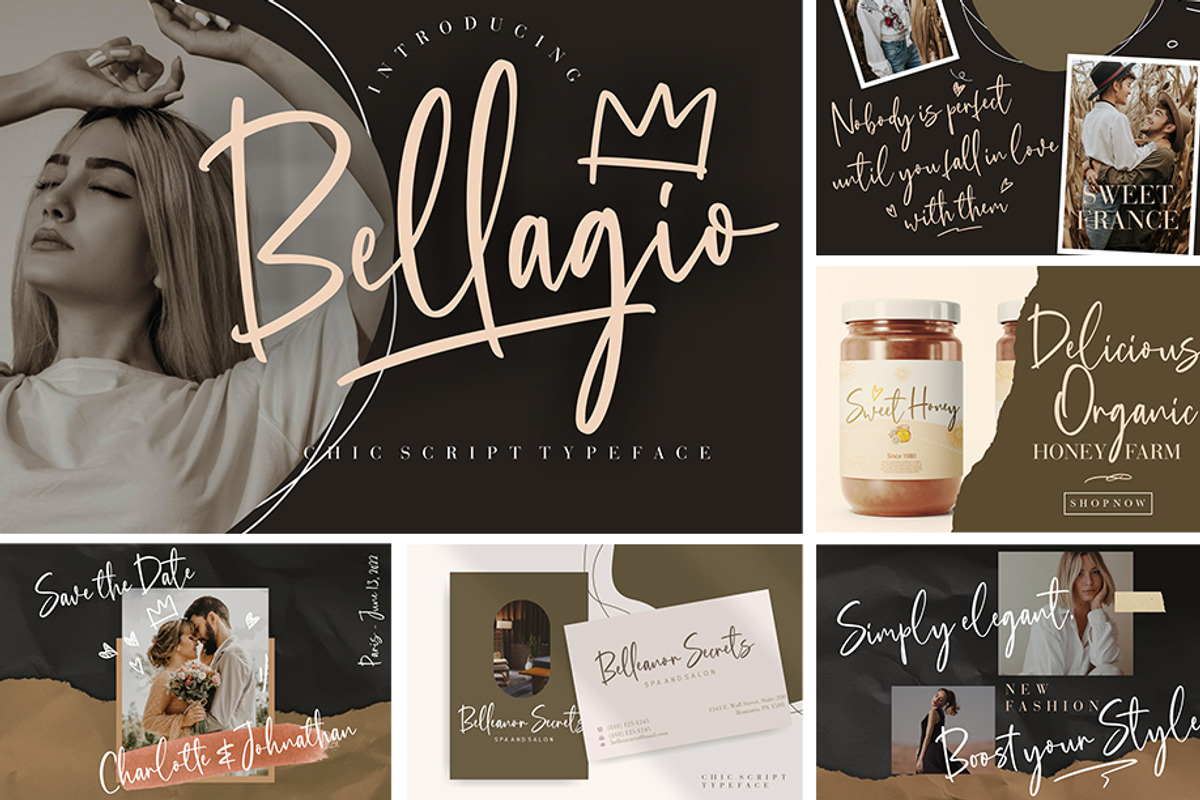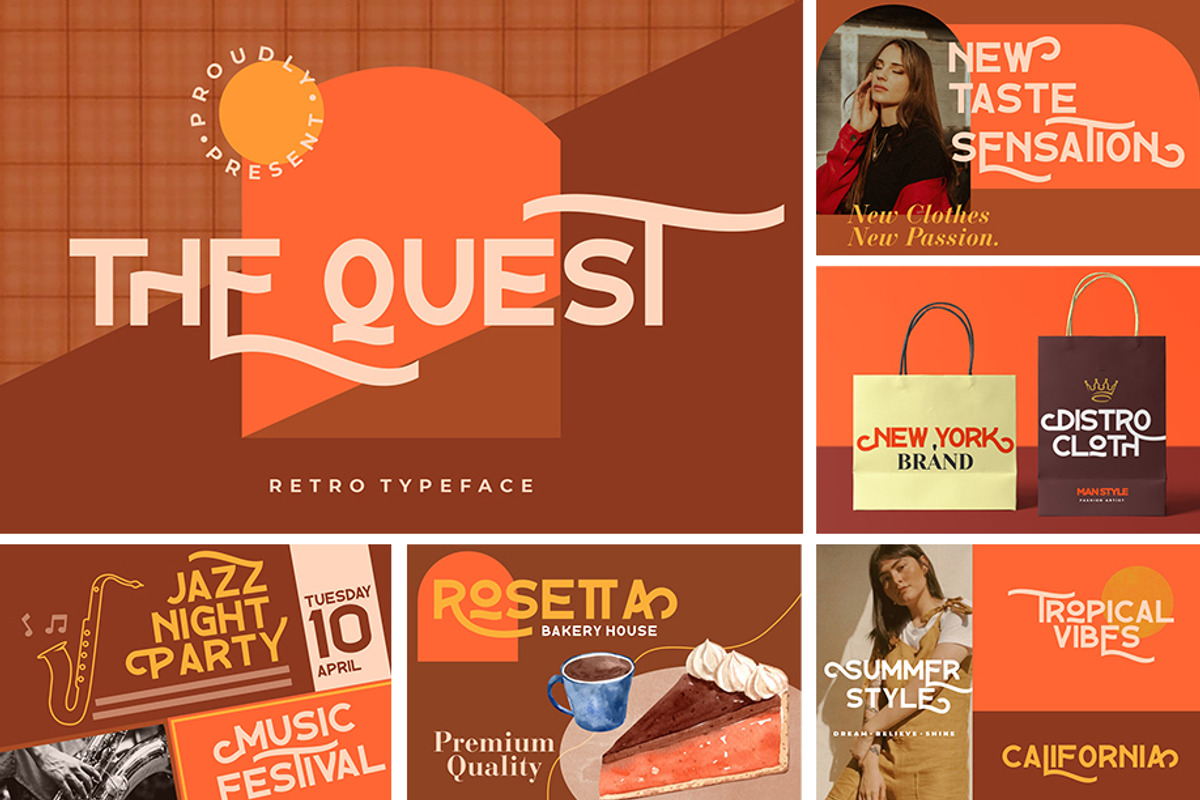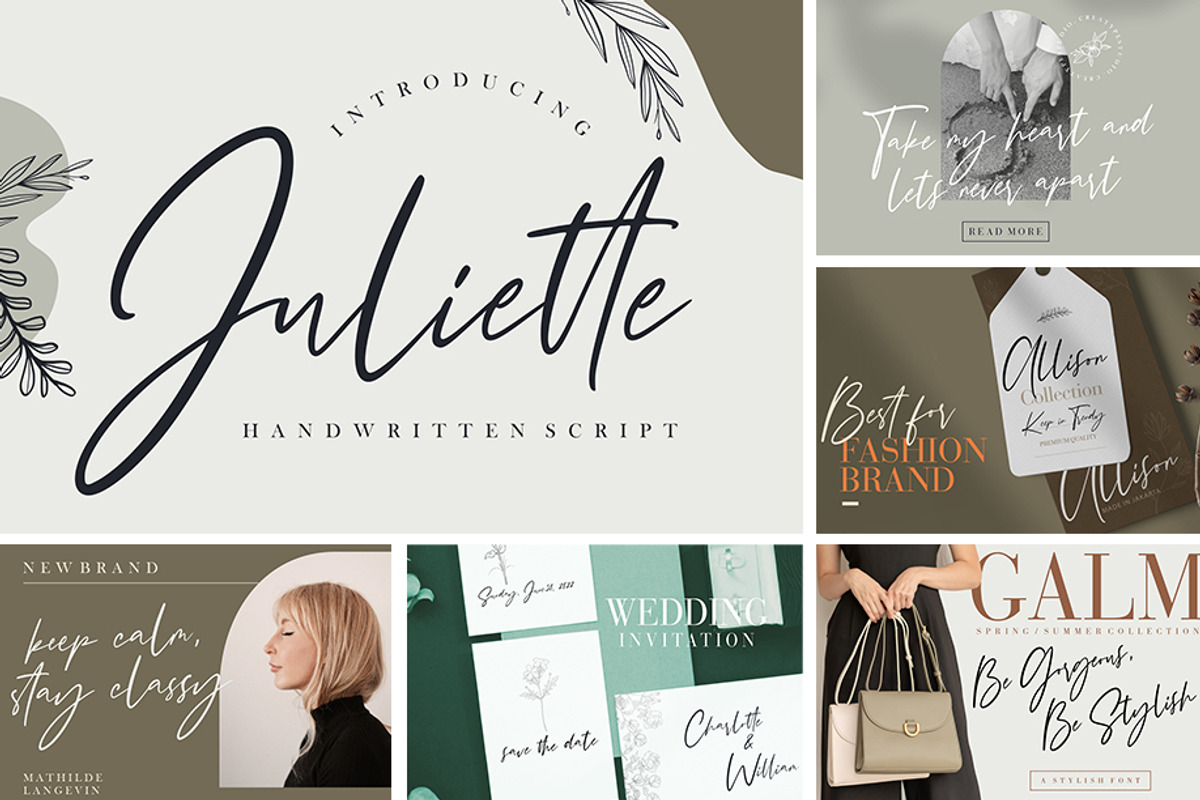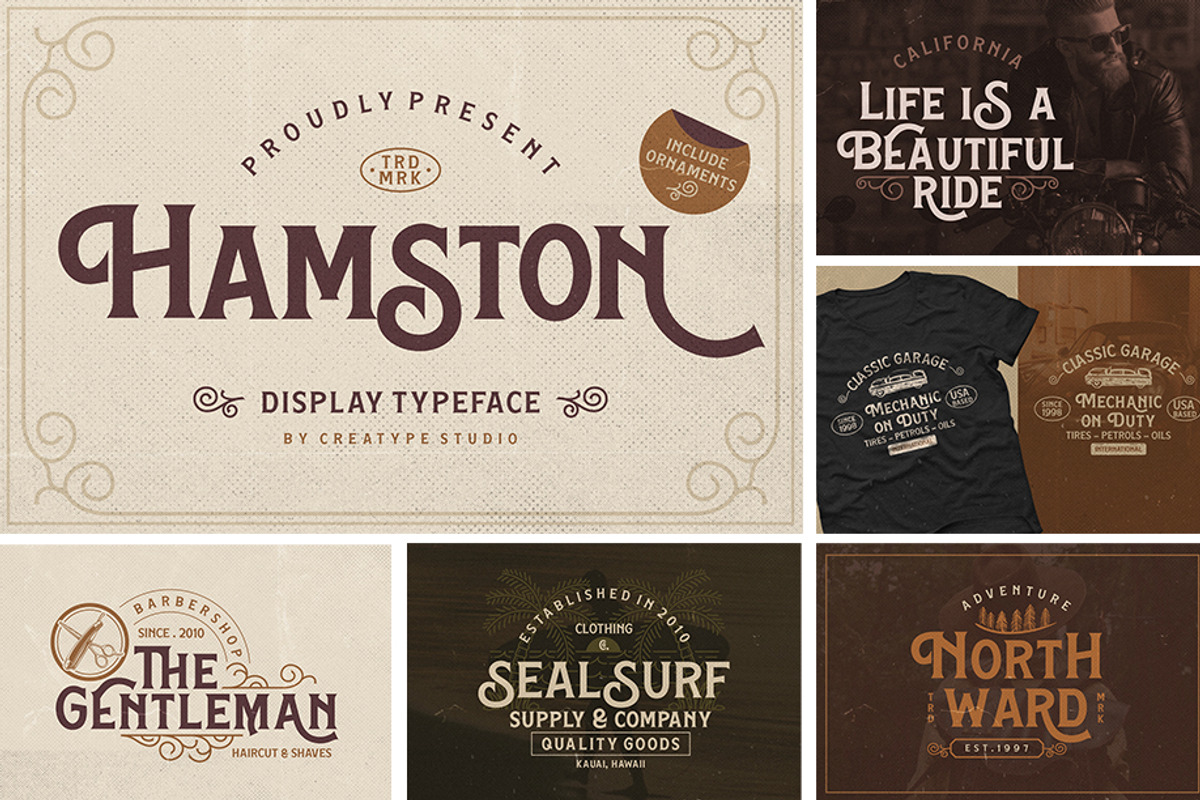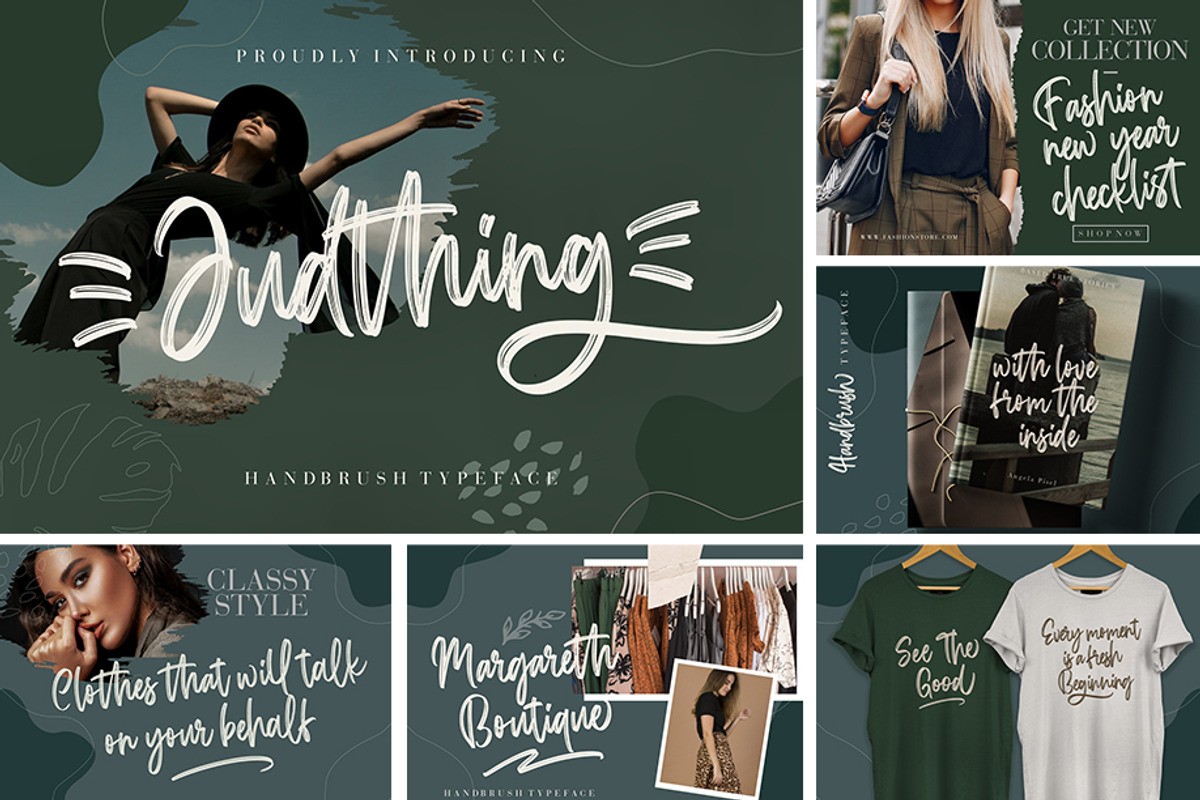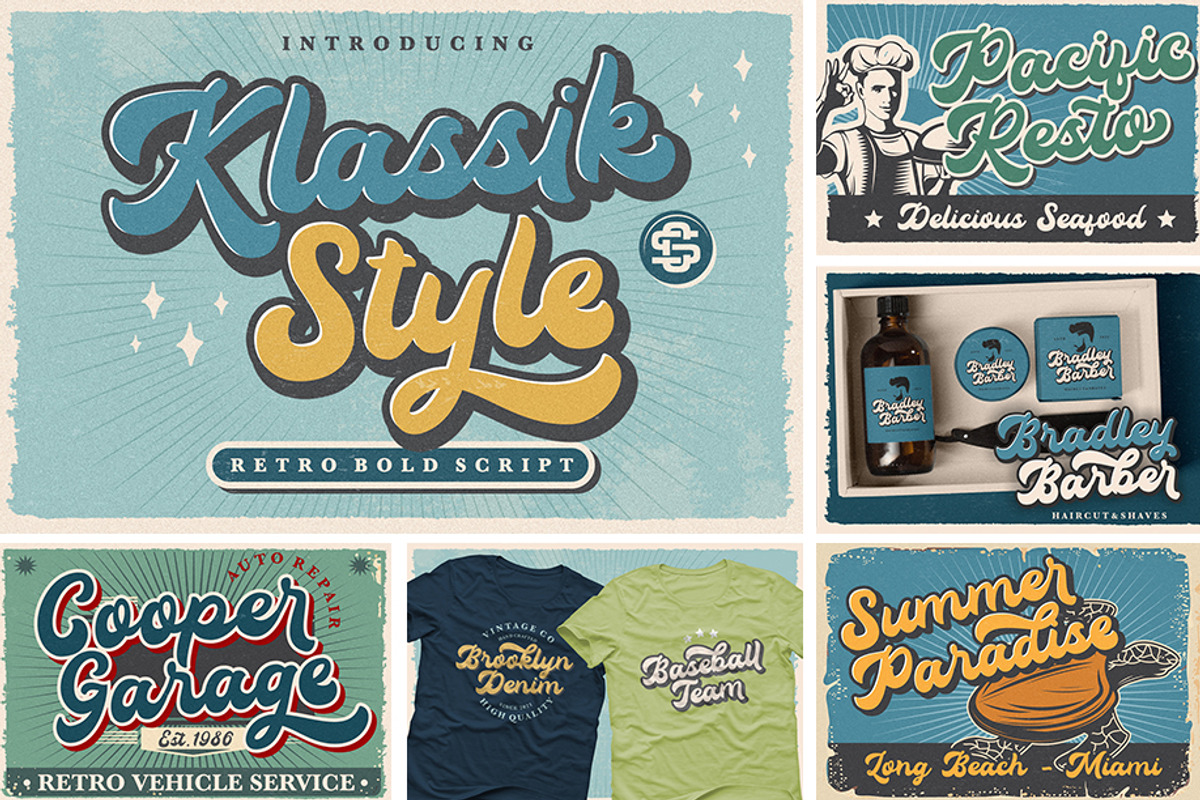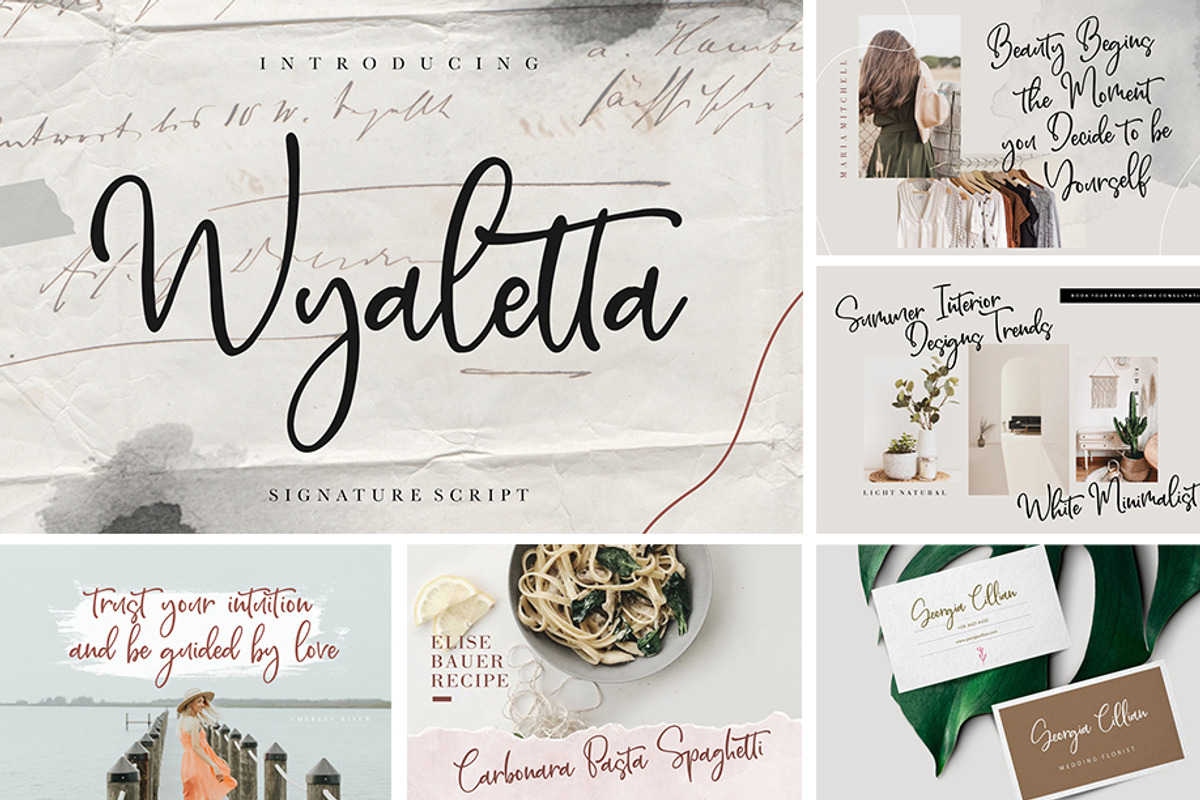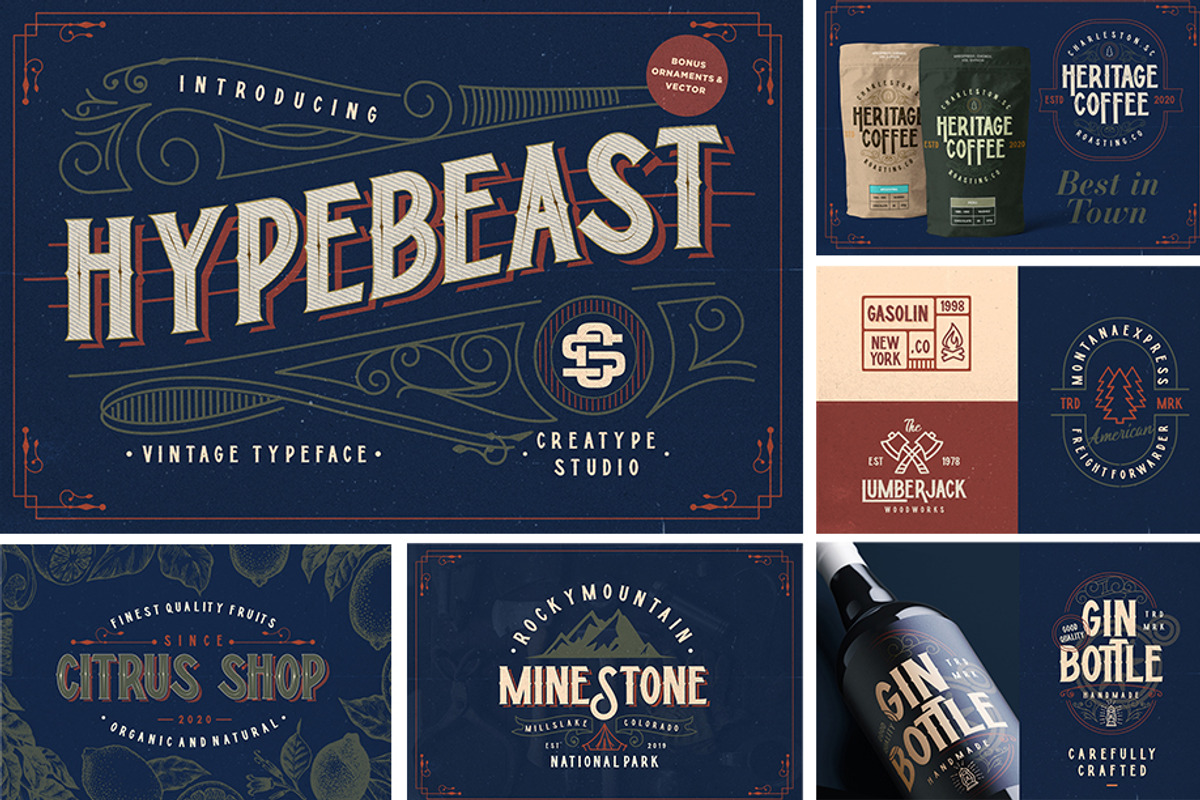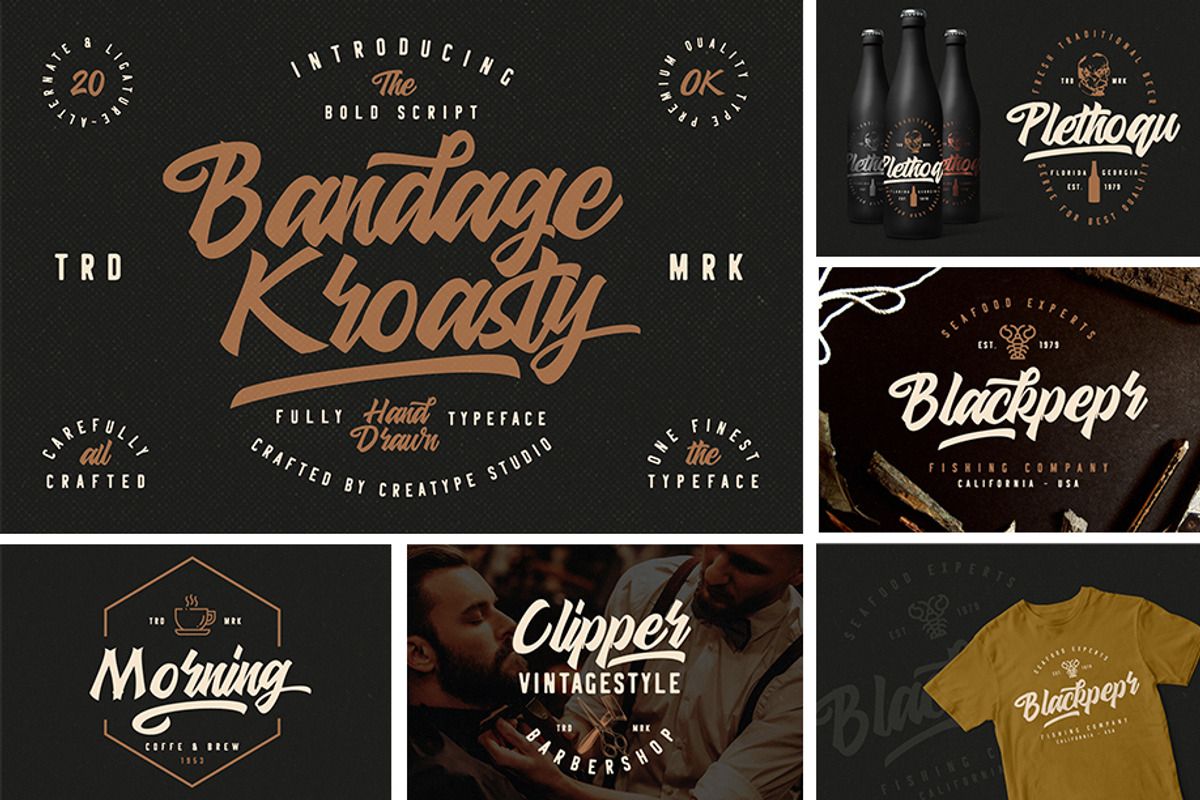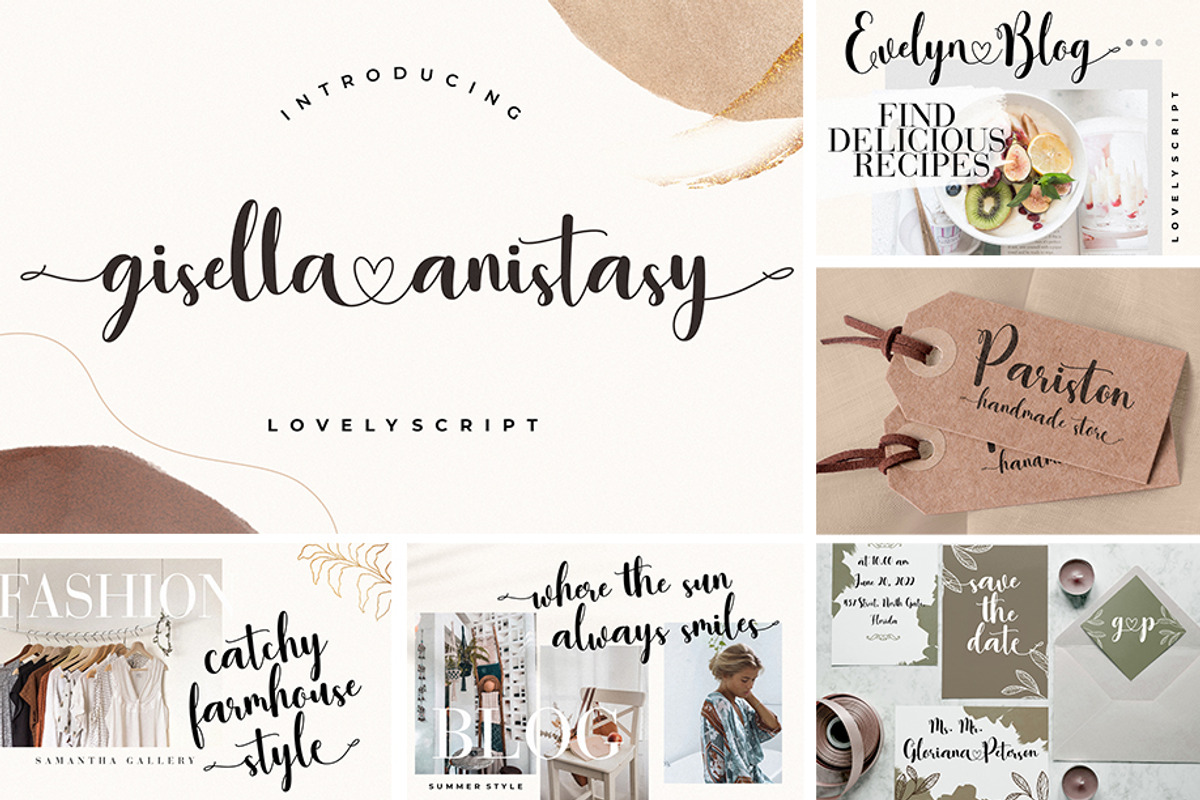
When Modern Meet Vintage Font Bundle
We combine our modern and elegant font with our vintage and retro font collection to please our customer satisfaction. This bundle contains 44 typefaces including 65 high-quality font families and sold only $27 and you will save for thousand dollars!
This bundle has varied range of typeface styles such as Sans Serif, Vintage, Retro and Script Font all with modern, elegant and stylish looks. Some of fonts have alternates, ligatures and swashes. The bundle also includes bonus vectors logos and ornament for your artwork and logos in .eps format.
- Monstera Signature Monoline : https://crmrkt.com/kPyB5o
- Southwell Brush Script : https://crmrkt.com/oPrd9p
- Agatha Christy Signature Collection : https://crmrkt.com/OK6BjE
- Karllina Handwriting Signature : https://crmrkt.com/GwPlAa
- Misrelly Signature Brush : https://crmrkt.com/vrkOoN
- Juliette Handwritten Script : https://crmrkt.com/oPkRBg
- Antipathy Stamp Retro : https://crmrkt.com/rPkzq9
- Tropikana Monoline Vintage Typeface : https://crmrkt.com/yP6G5G
- Klassik Style Retro Bold Script : https://crmrkt.com/Ml7vaq
- Sabertooth Signature Brush : https://crmrkt.com/77Qoq7
- Gisella Anistasy Lovely Script : https://crmrkt.com/3WwGzb
- Wishholder : https://crmrkt.com/Qd6Mdo
- Hypebeast - Layered Font : https://crmrkt.com/rk0Pdv
- Bandage Kroasty Script : https://crmrkt.com/Wk95my
- Rampage Monoline Script : https://crmrkt.com/99MNaD